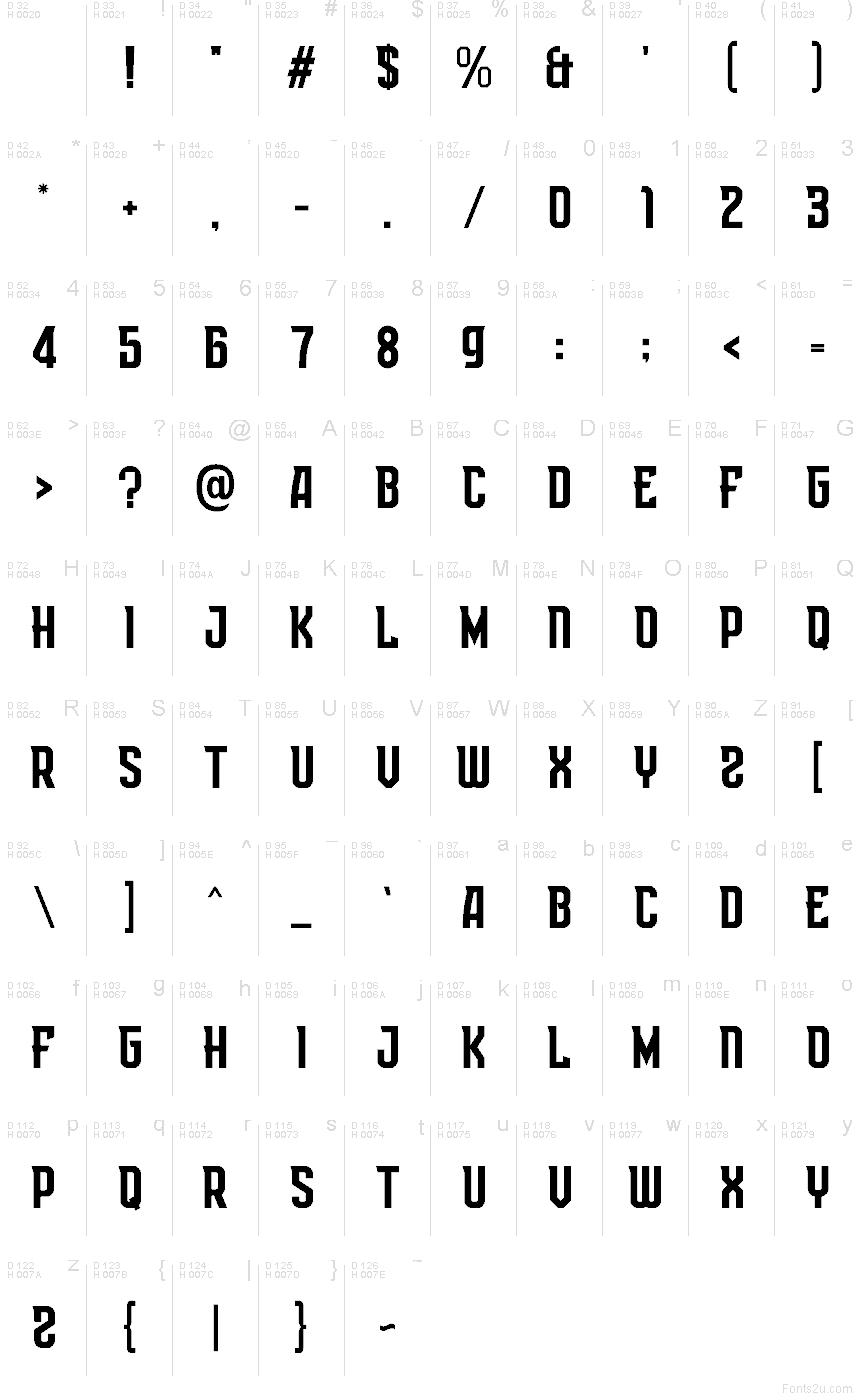
Rennes font by Trequartista Studio is a free retro display typeface with a bold, carved look that feels like vintage lettering cut from thick wood or metal. Its tall, blocky forms and sharp inner corners create a strong vertical rhythm, while the squared curves keep it chunky and tactile rather than slick. The result is a confident, throwback voice that reads clearly even at a glance, with just enough angular detail to feel distinctive and custom.
Using Rennes, you get that punchy, headline-first energy that shines on posters, sports branding, arcade or gaming titles, bold signage, and retro-themed packaging or logos. This free font loves to be set large, where its sculpted shapes and tight spacing can really lock together. For body copy or small text, pair Rennes with a simple geometric sans serif to keep layouts readable while letting its heavy, nostalgic letters carry the main hook.